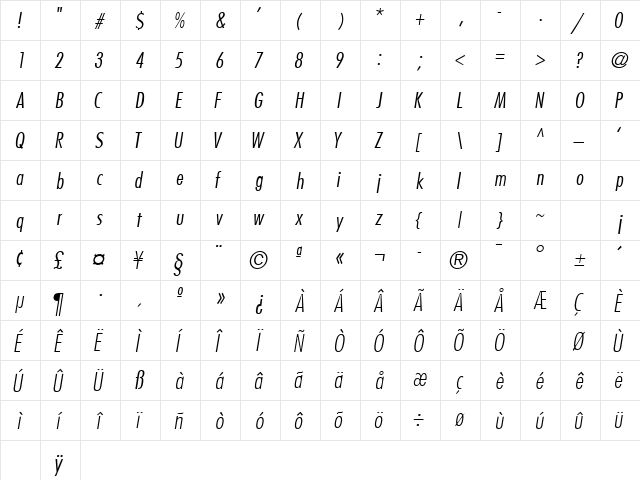
KudosLightCondSSK Italic Font Preview
Design Context for KudosLightCondSSK Typeface
KudosLightCondSSK takes a measured approach to typography — its balanced proportions and neutral character make it a reliable workhorse for both digital and print work. The dynamic lean of this cut emphasises speed and emphasis in any layout. The delicate stroke weight brings airiness and refinement to layouts. Its narrow stance lets it pack a punch even in space-constrained designs.